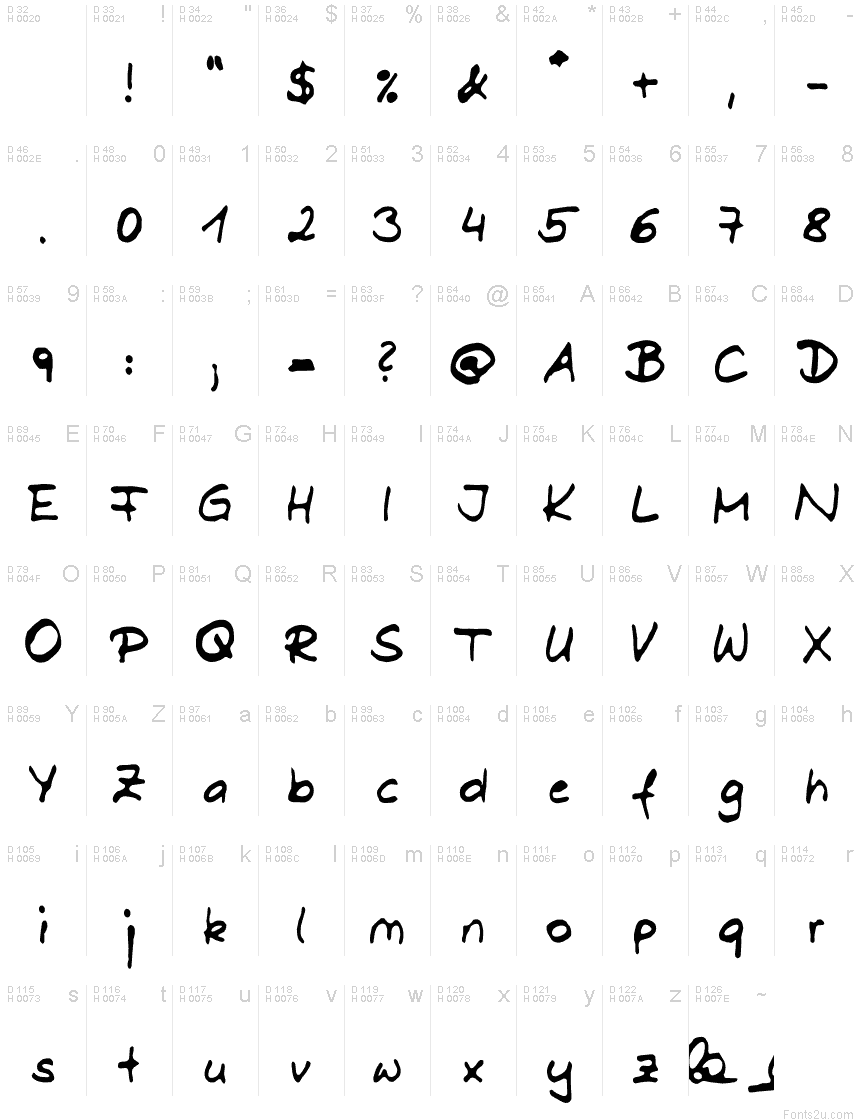
Dani
Dani font by MeineFirma is a free handwritten font; this inky brush typeface comes in thick, confident strokes with rounded edges that feel warm and human. The rhythm is loose and slightly bouncy, so words look like they were painted quickly—bold enough to read, but still personal.
Using Dani font works beautifully for logos, café menus, greeting cards, stickers, social posts, packaging labels, and album cover titles. Set it a bit large so the brush texture can breathe, and pair it with a clean sans like Inter or Helvetica for body copy to keep the message crisp beside this free font’s lively signature energy.